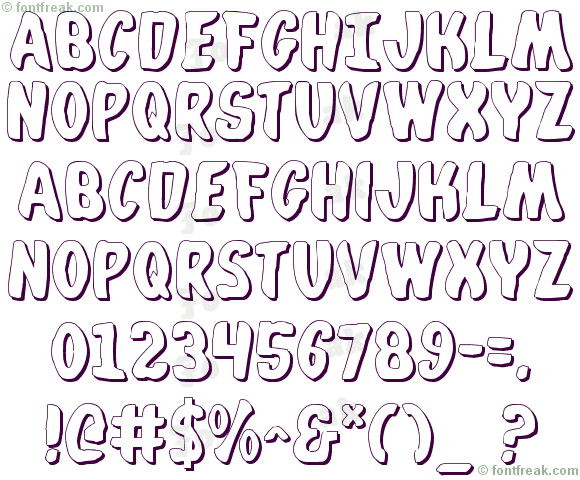
Whatafont Italic
Whatafont Expanded
Whatafont Shadow
Whatafont
About Whatafont
Whatafont, designed by Iconian Fonts in 2002, is a unique display font that captures attention with its bold and playful character. This freeware font features an expanded shadow style, making it ideal for projects that require a strong visual impact. Its stroke weight is consistent and thick, providing a solid presence, while the rounded edges soften its look, contributing to a friendly and approachable feel. The decorative shadow effect adds depth, enhancing its overall aesthetic without overwhelming the viewer.
This font is versatile and can be utilized in various applications. It works exceptionally well for movie posters, where its dramatic flair can evoke excitement and curiosity. Whatafont is also a great choice for restaurant menus, lending a fun and inviting atmosphere to dining experiences. Additionally, it can be effectively used in children's books or educational materials, sparking interest and engagement among young readers. Graphic designers will find it useful for promotional materials, such as flyers and advertisements, where boldness and clarity are paramount.
Targeted primarily at graphic designers, small business owners, and content creators, Whatafont is a tool that can elevate any creative project. Its unique style allows users to make a statement while maintaining readability, making it suitable for both print and digital media.
What sets Whatafont apart from other display fonts is its ability to merge fun and functionality seamlessly. The combination of its bold character and decorative elements allows it to stand out without compromising on legibility. For anyone looking to make their designs pop, Whatafont font free download is a fantastic option that brings a touch of creativity to any project.